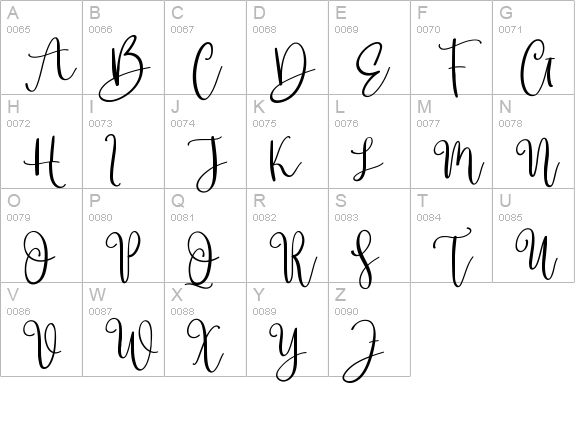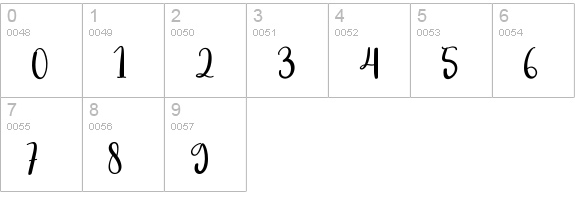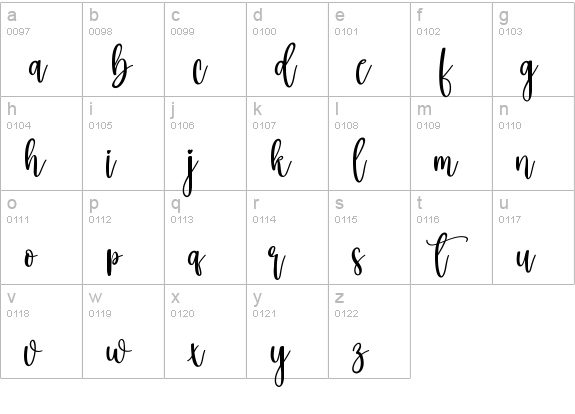
Freshtea Font Details
Freshtea is a free for personal use font in the Script > Handwritten category, designed by scratchones. It has been downloaded 8 times and is available for Windows, Mac and Linux.
Freshtea font is a modern and elegant typeface that exudes sophistication and style. With its sleek lines and graceful curves, this font is perfect for a wide range of design projects, from branding to editorial design. The Freshtea font is versatile and can be used for both headings and body text, making it a versatile addition to any designer's toolkit.